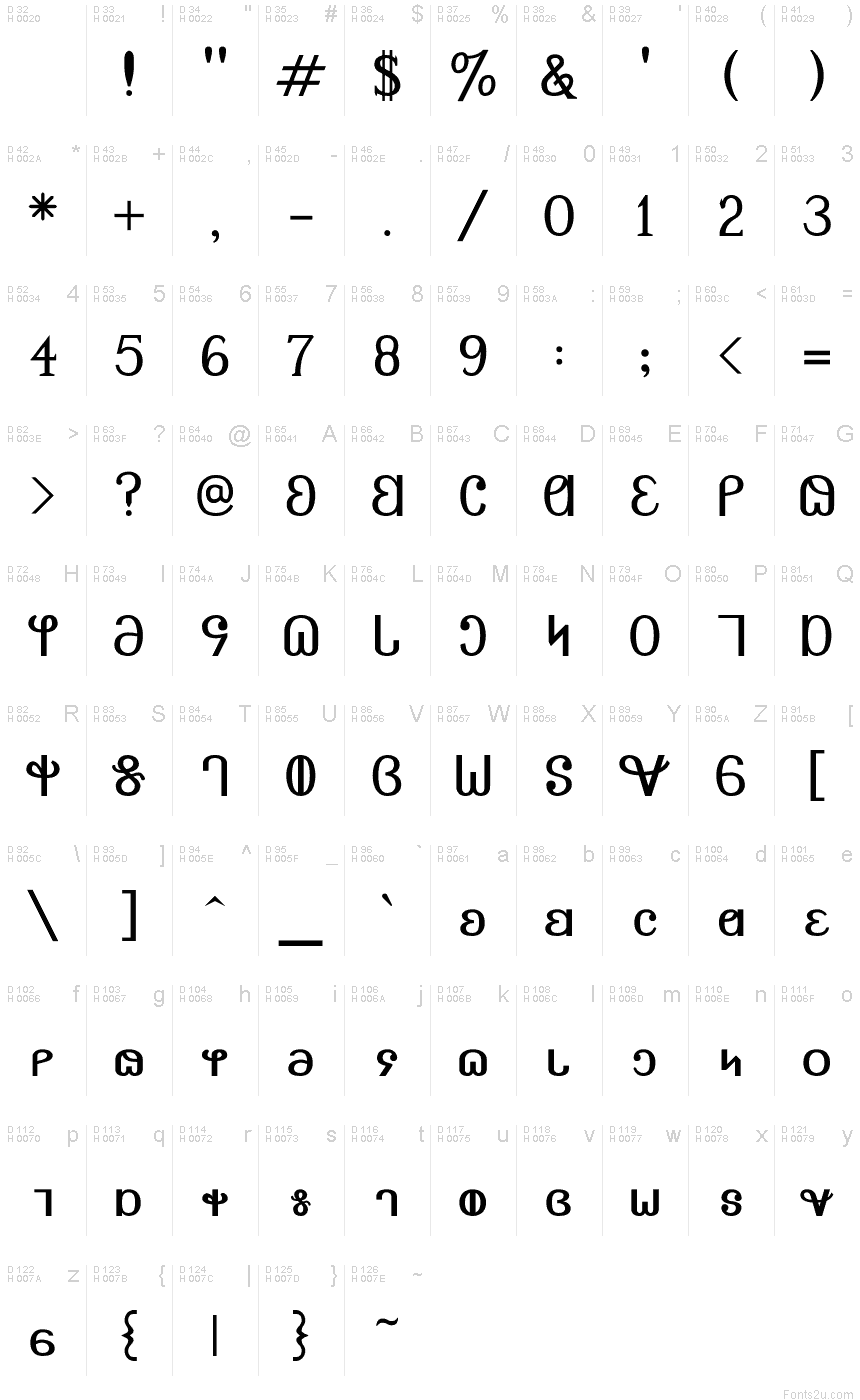
Deseret
Deseret font by Daniel U. Thibault is a free foreign-look typeface dedicated to the historic Deseret alphabet, with glyph designs originating from James Kass. Its rounded, even strokes and softly hooked forms give the script a steady, learnable rhythm, while the open shapes keep each character easy to distinguish. The overall effect feels both archival and accessible—like a careful transcription of a rare writing system, ready for contemporary layouts.
Using Deseret, this free font becomes a natural fit for language-learning charts, primers, academic posters, conlang projects, speculative interfaces, museum graphics, and puzzle games. The generous spacing holds up well at larger sizes, so use it for headings or callouts and pair it with a plain sans serif for Latin text to keep everything readable and organized.
A freeware Deseret alphabet font. Since it occupies the Unicode 3.1 range $10400-$1044F, it is unaccessible to older implementations. Here we mapped the Deseret alphabet into the Latin-1 Unicode range. Arbitrarily, the transcription is as follows:
Long i = i; Long e = e; Long a = a;
Long ah = á; Long o = o; Long oo = u;
Short i = î; Short e = ê; Short a = â;
Short ah = à; Short o = ô; Short oo = û;
AY = ã; OW = õ; WU = w;
YEE = y; H = h; PEE = p;
BEE = b; TEE = t; DEE = d;
CHEE = c; JEE = j; KAY = k;
GAY = g; EF = f; VEE = v;
ETH = ð; THEE = þ; ES = s;
ZEE = z; ESH = š (s caron), q; ZHEE = (z caron), x;
ER = r; EL = l; EM = m;
EN = n; ENG = ñ.
The punctuation, digits and miscellaneous symbols are standard Latin glyphs. Note that existing Deseret samples also mix Roman numerals within the text.
The glyphs were extracted from James Kass' Code2001, an experimental Plane 1 Unicode 3.1 font.